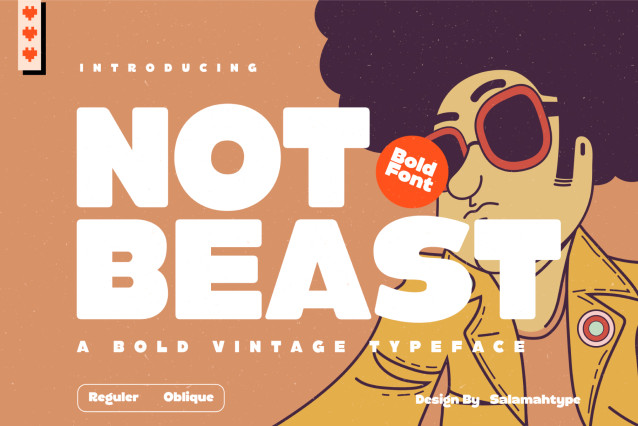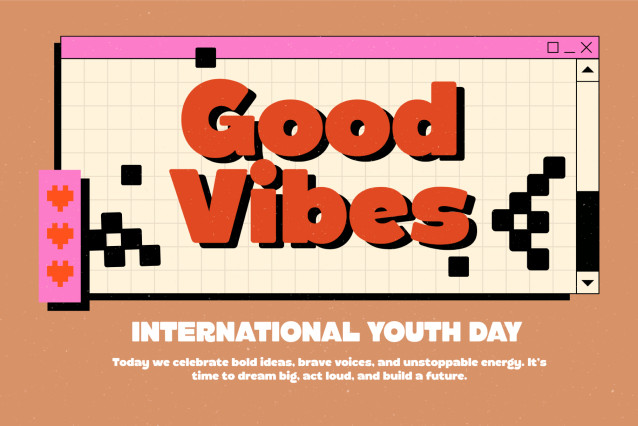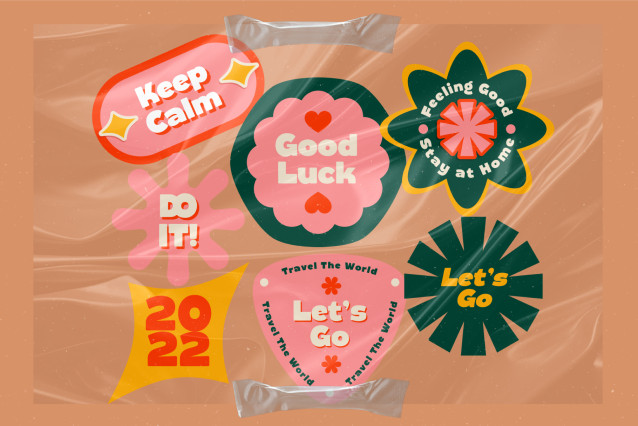
Not Beast – Smooth Bold Font
Not Beast is a strong and retro-inspired bold typeface that brings a touch of vintage flair to your designs. With its chunky letterforms and playful style, this font is perfect for posters, logos, packaging, album covers, apparel, and eye-catching headlines.